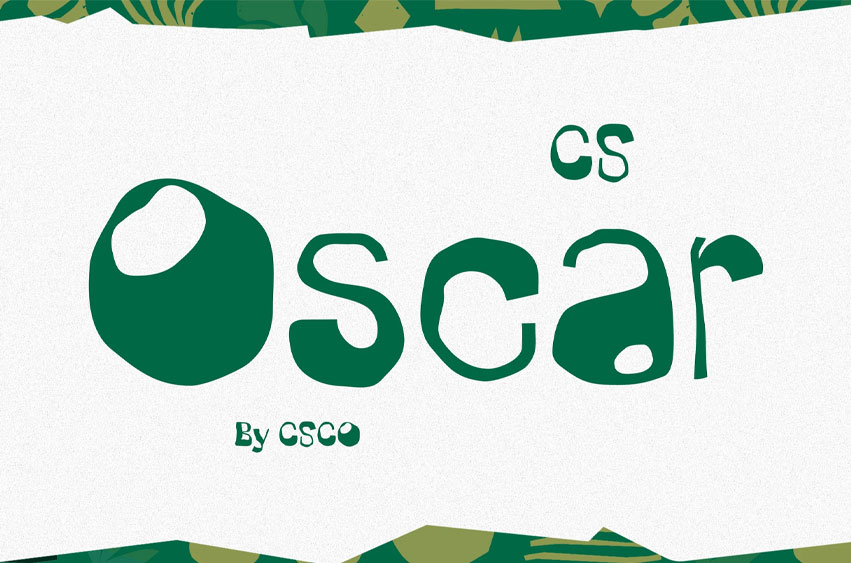
CS Oscar Font
CS Oscar Font Display Font with an Etchy and Handwritten Style CS Oscar is a display font with an etchy, hand-drawn aesthetic, featuring rough, irregular strokes that give it a raw and authentic feel. Designed to break away from traditional clean lines, this font embraces imperfection and spontaneity, making it ideal for projects that demand a bold, artistic, and experimental touch.
Dynamic and Funky Vibe With its scratched, sketch-like appearance, CS Oscar brings a funky and rebellious energy to any design. The expressive letterforms add a sense of movement and personality, making it a standout choice for creatives looking to infuse their work with edgy, alternative aesthetics.
Perfect for Alternative and Music-Themed Designs Whether used in music posters, album covers, zines, or underground event promotions, CS Oscar captures the spirit of alternative and indie culture. Its rugged, energetic strokes evoke a sense of DIY creativity, making it a great fit for designs that need a gritty yet visually striking identity.
A Bold Choice for Unique Visual Projects CS Oscar thrives in branding, merchandise, experimental typography, and expressive visual projects that aim to be different. Its handcrafted, nonconformist design ensures that every use of the font feels organic and full of character, allowing designers to create work that stands out with a distinct, artistic edge.